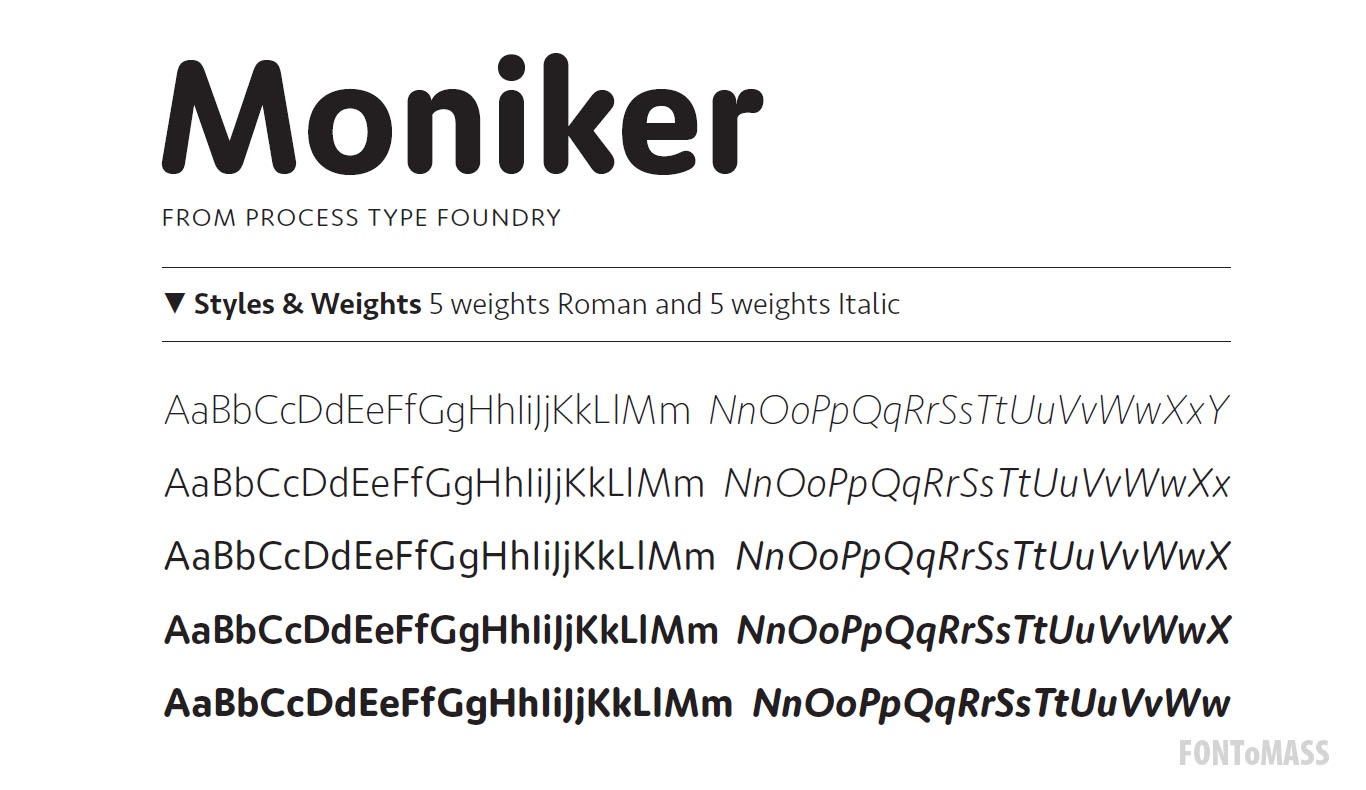
Moniker Font
Moniker Font is perfect for vintage branding projects, retro poster designs, classic logo creation, nostalgic packaging, heritage brand identities, artisanal product labels, craft brewery graphics, and timeless editorial layouts.
This exciting Moniker Font delivers authentic vintage charm with its carefully crafted letterforms that evoke the golden age of typography while maintaining perfect readability for modern applications. The font's distinctive character and nostalgic appeal make it an exceptional choice for designers seeking to create memorable brand experiences that connect with audiences on an emotional level.
The Moniker Font family includes multiple variations such as Regular, Bold, Light, Condensed, Extended, and Outline versions, providing comprehensive design flexibility for creating cohesive vintage-inspired brand systems and hierarchical typography arrangements.
Experience the timeless appeal of Moniker Font Free Download - a versatile typeface that captures the essence of classic American typography with contemporary functionality. This carefully designed font bridges the gap between historical authenticity and modern usability, making it ideal for brands wanting to establish trust and credibility through time-tested design principles.
The distinctive character of Moniker Font makes it particularly effective for artisanal businesses, craft industries, heritage brands, and establishments that value tradition and quality craftsmanship. Its warm, approachable personality resonates with consumers seeking authentic experiences and genuine brand connections in today's fast-paced digital world.
Design professionals choose Moniker Font for its exceptional versatility in both print and digital applications. The font maintains its vintage charm across various sizes and mediums, from small business cards to large outdoor signage, ensuring consistent brand recognition and visual impact throughout all touchpoints.
The authentic styling of Moniker Font appeals to audiences who appreciate craftsmanship, heritage, and traditional values. This makes it an excellent choice for restaurants, breweries, boutique shops, handmade products, and service-based businesses that want to communicate quality, reliability, and time-honored expertise.
Contemporary brands utilize Moniker Font to differentiate themselves in crowded marketplaces by leveraging nostalgia and authenticity as powerful marketing tools that create lasting emotional connections with their target demographics and customer base.